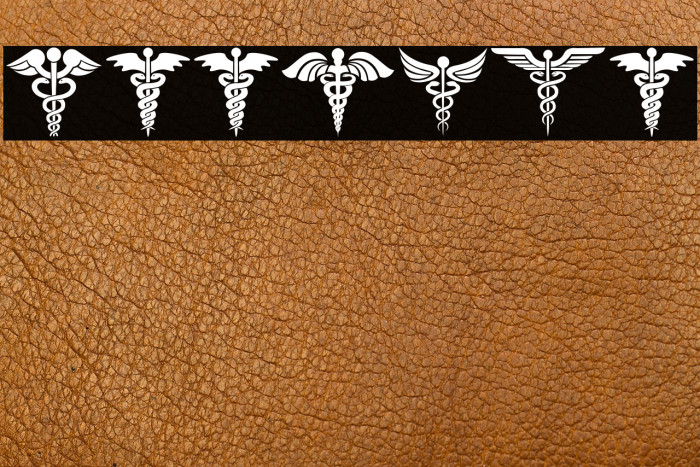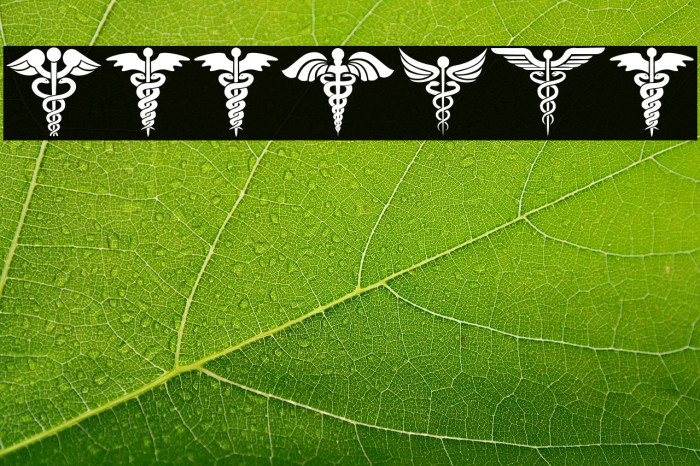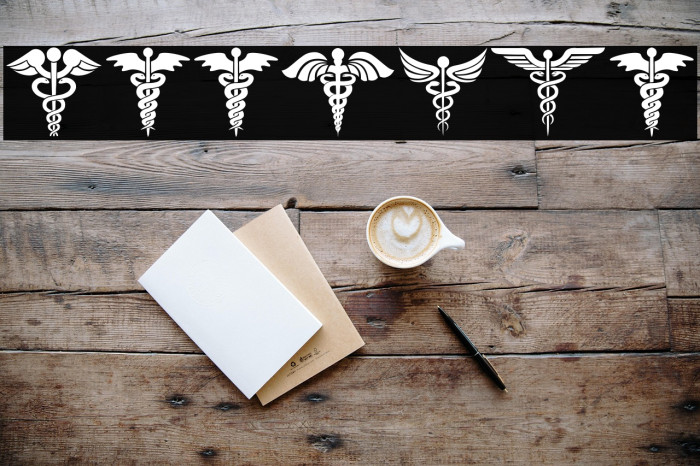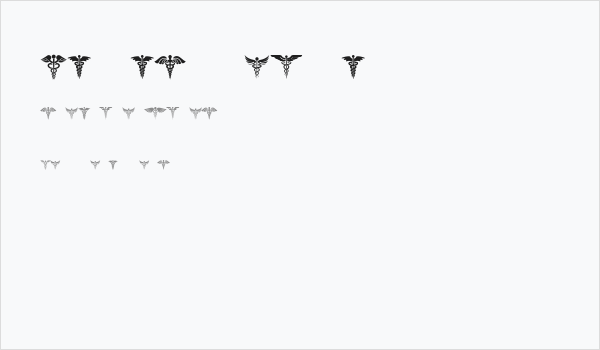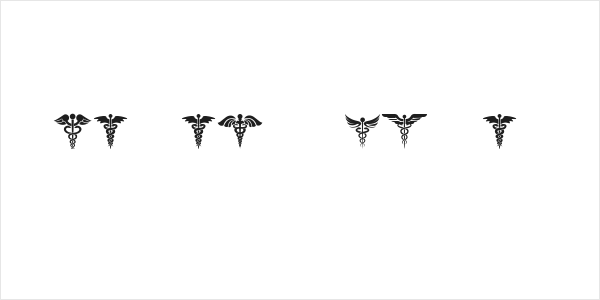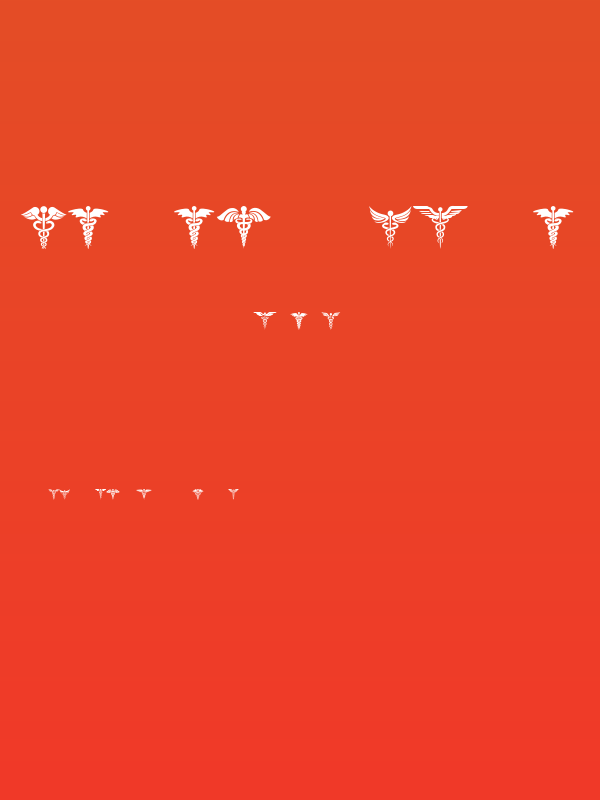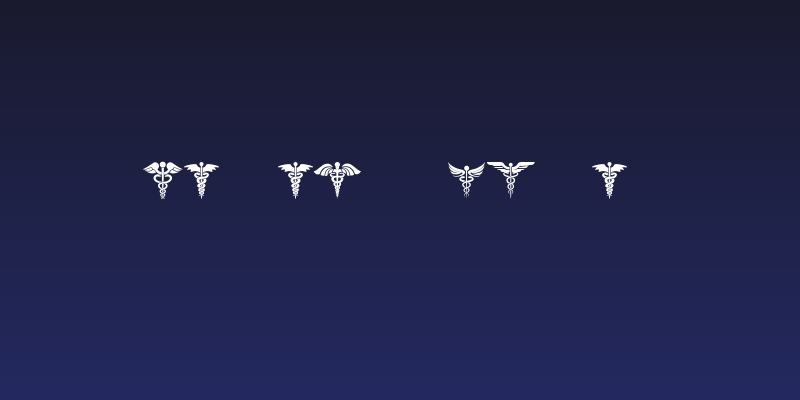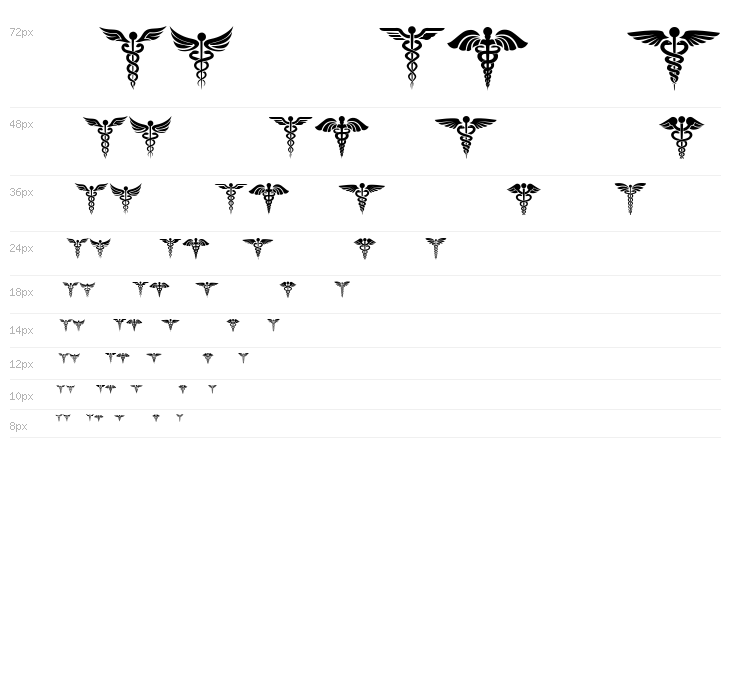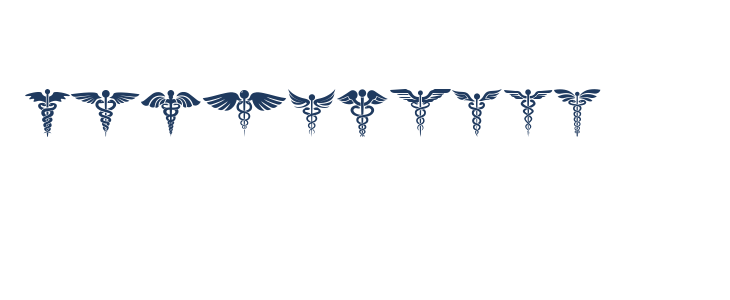
Farmacy Regular Font
Farmacy Regular Description
A decorative dingbat font featuring various caduceus and medical symbol glyphs, each letter and number represented by a unique medical-themed icon with bold, symmetrical lines and intricate details.
| Overall Style | Decorative, Thematic |
| Use Case | Logos, Decorative elements, Themed dividers, Posters |
| Proposed Projects | Healthcare branding, medical posters, pharmacy signage, educational materials, decorative borders. |